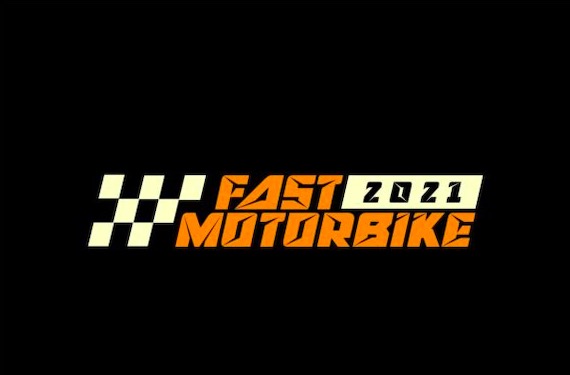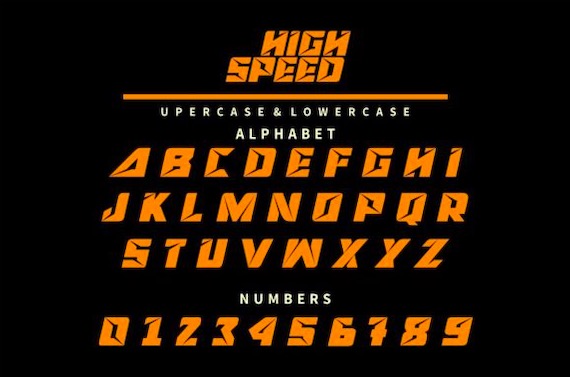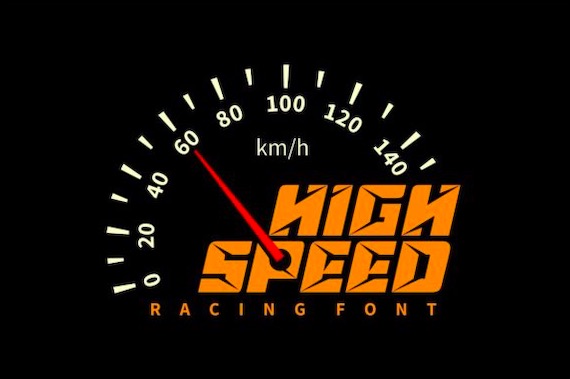
HIGH SPEED font is a great familiar RACING FONT that has a unique display look. This font has a powerful and versatile feel that was created and shared by GFRcreative. It will be a gorgeous design tool for your latest designs.
High Speed Display Font